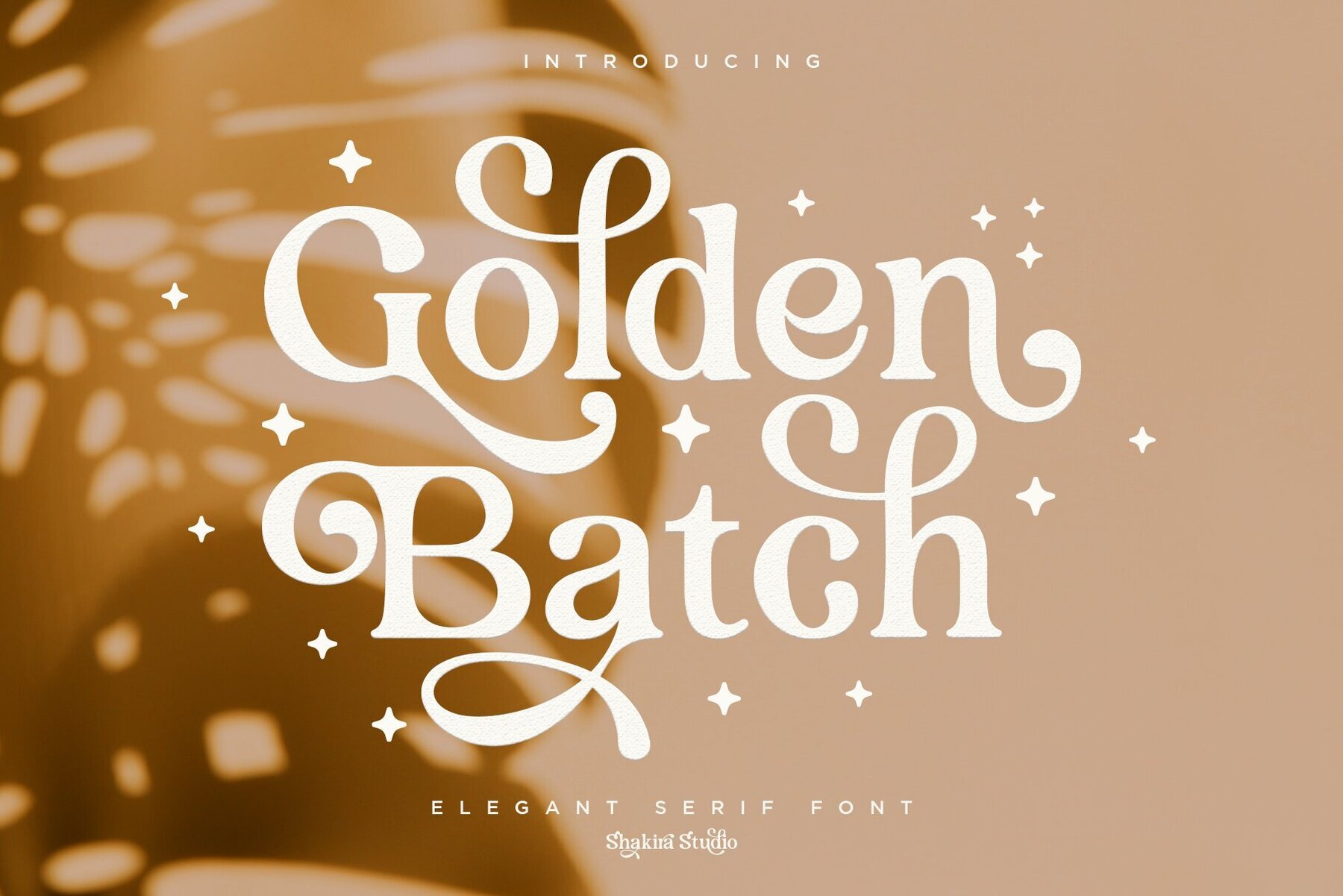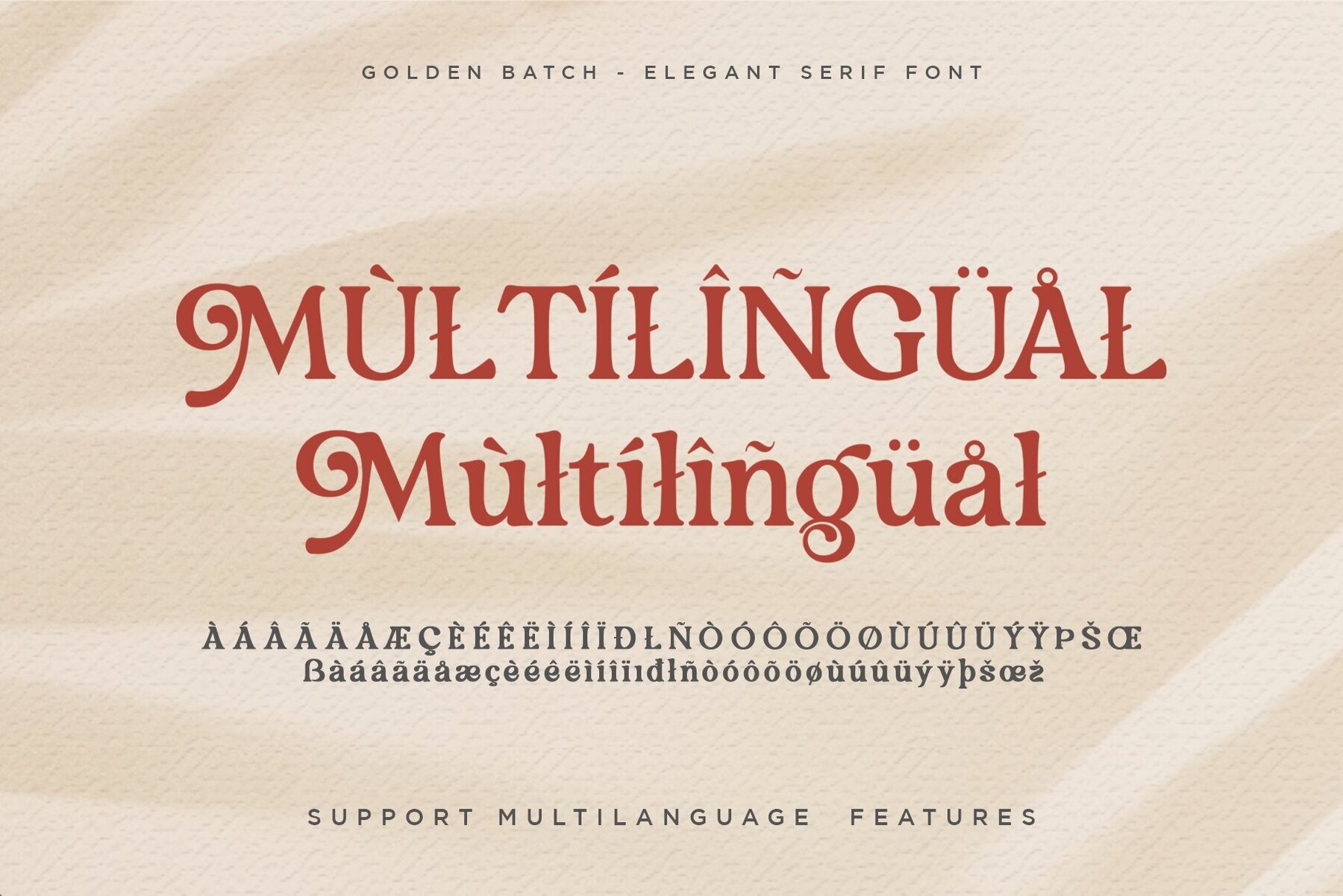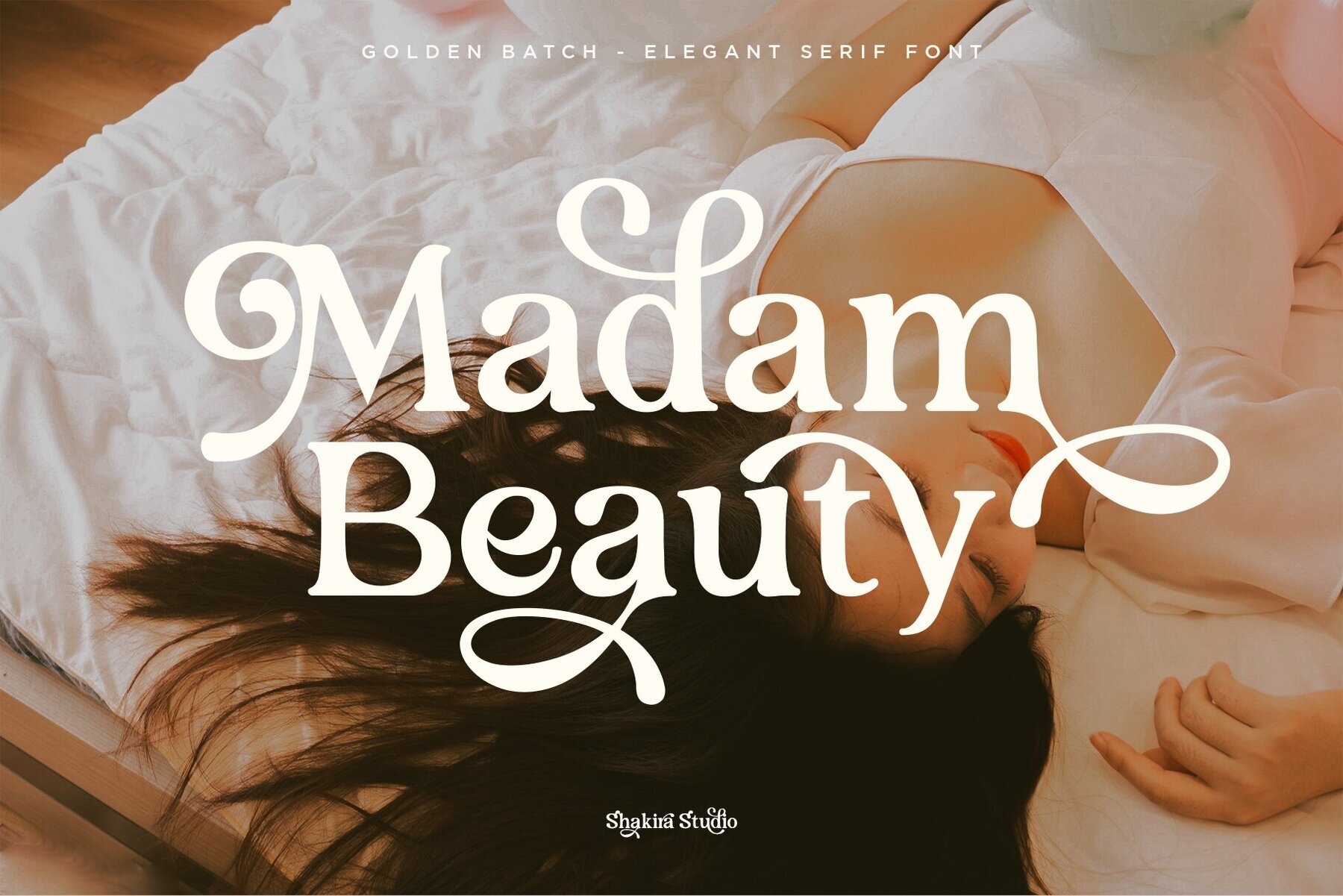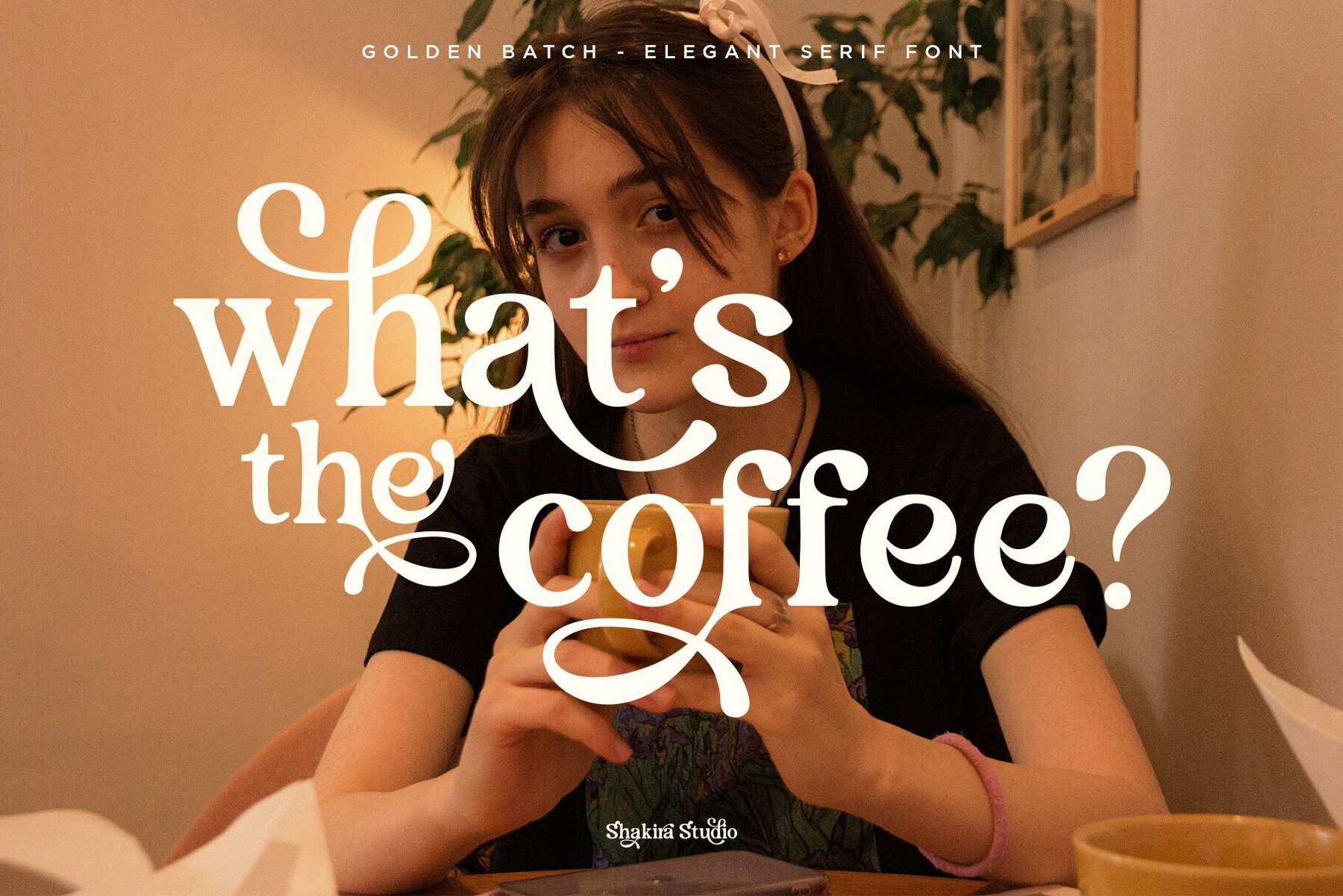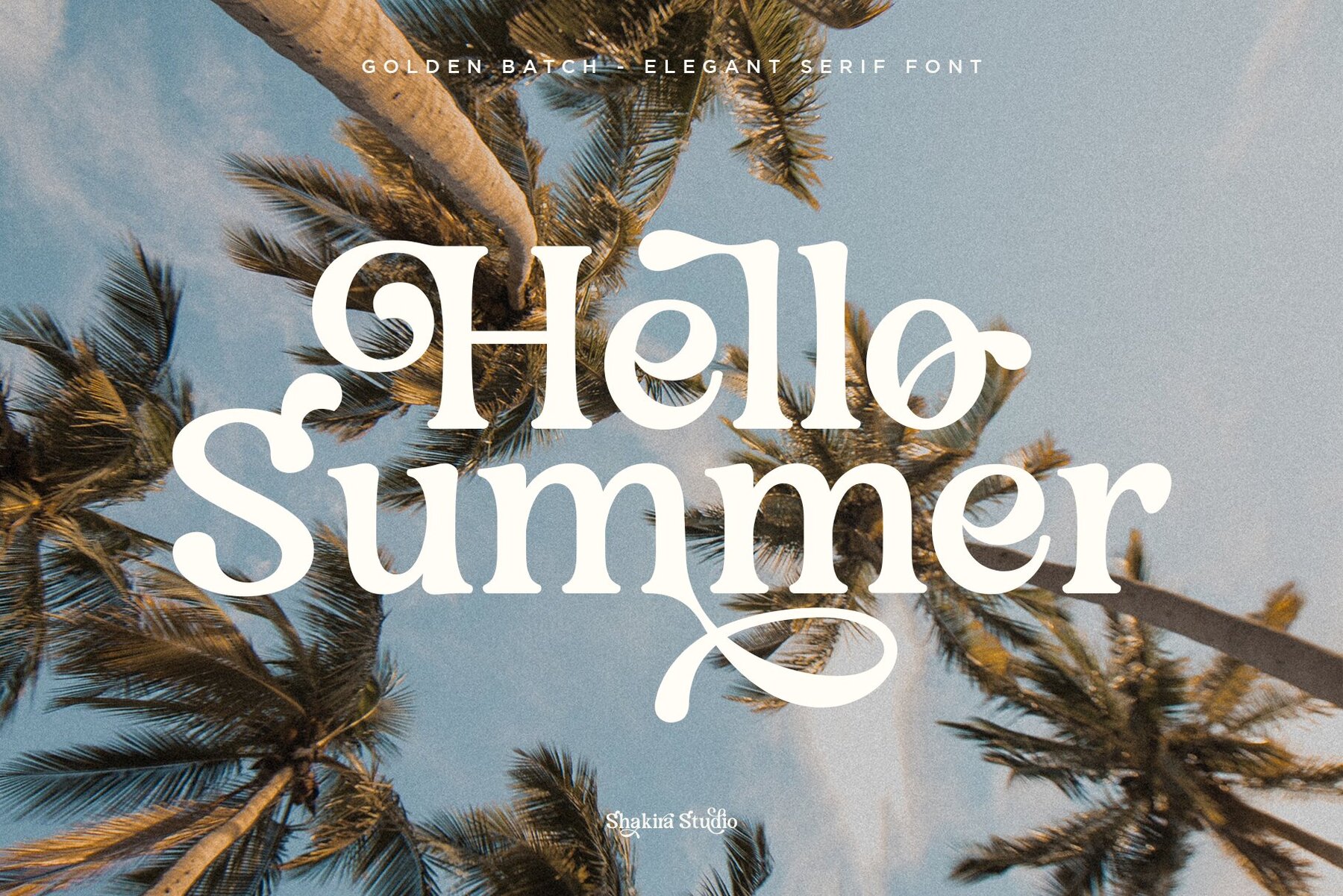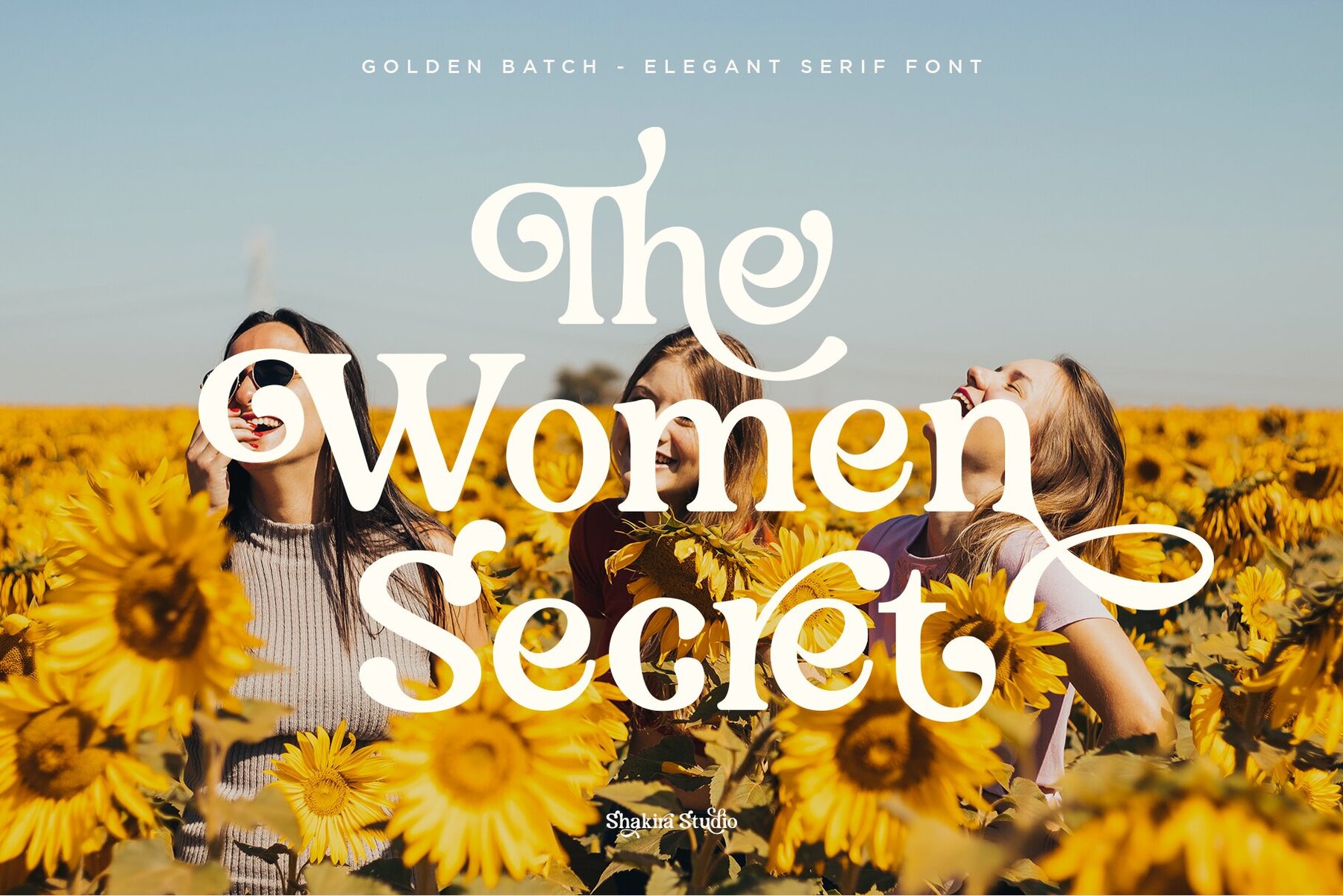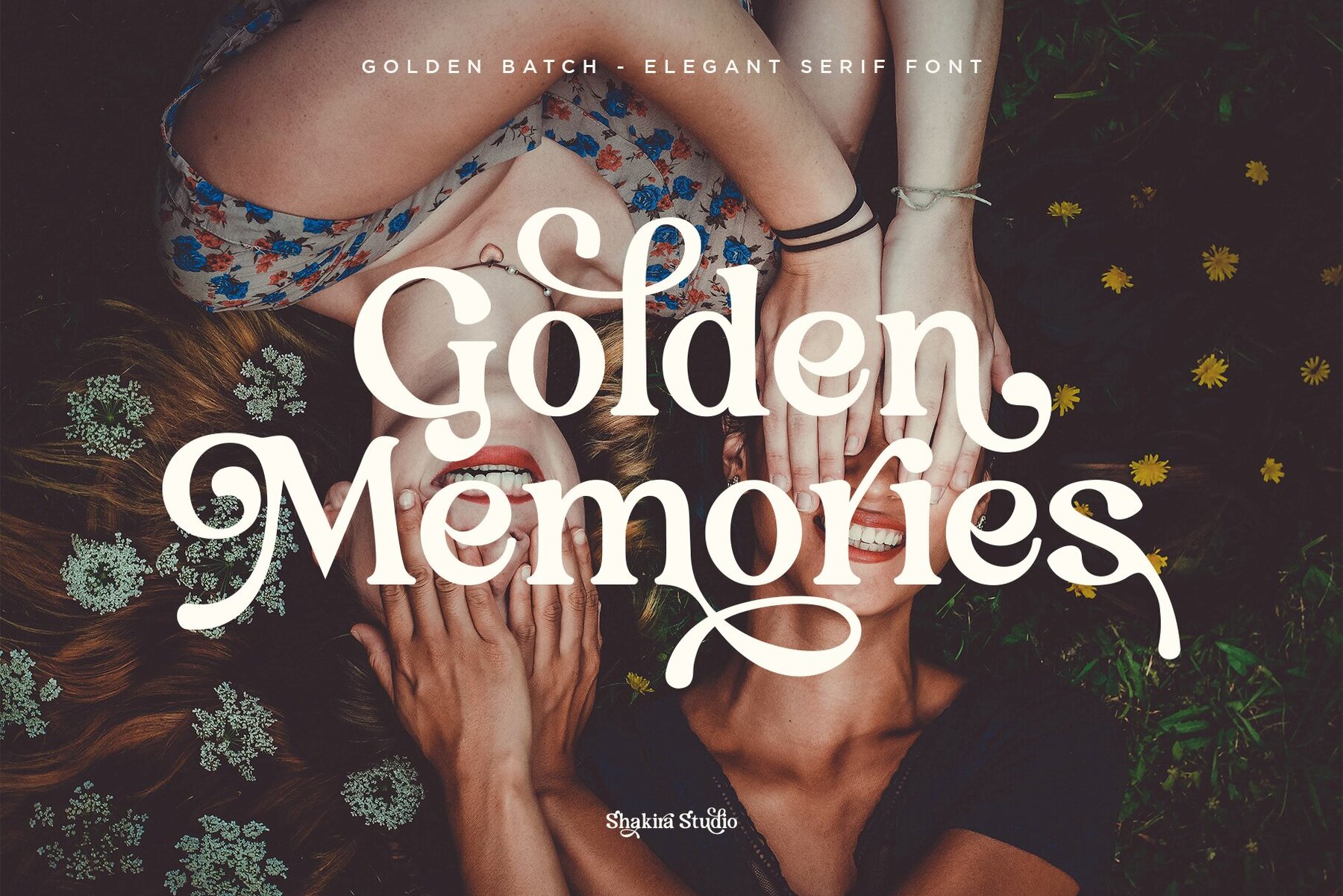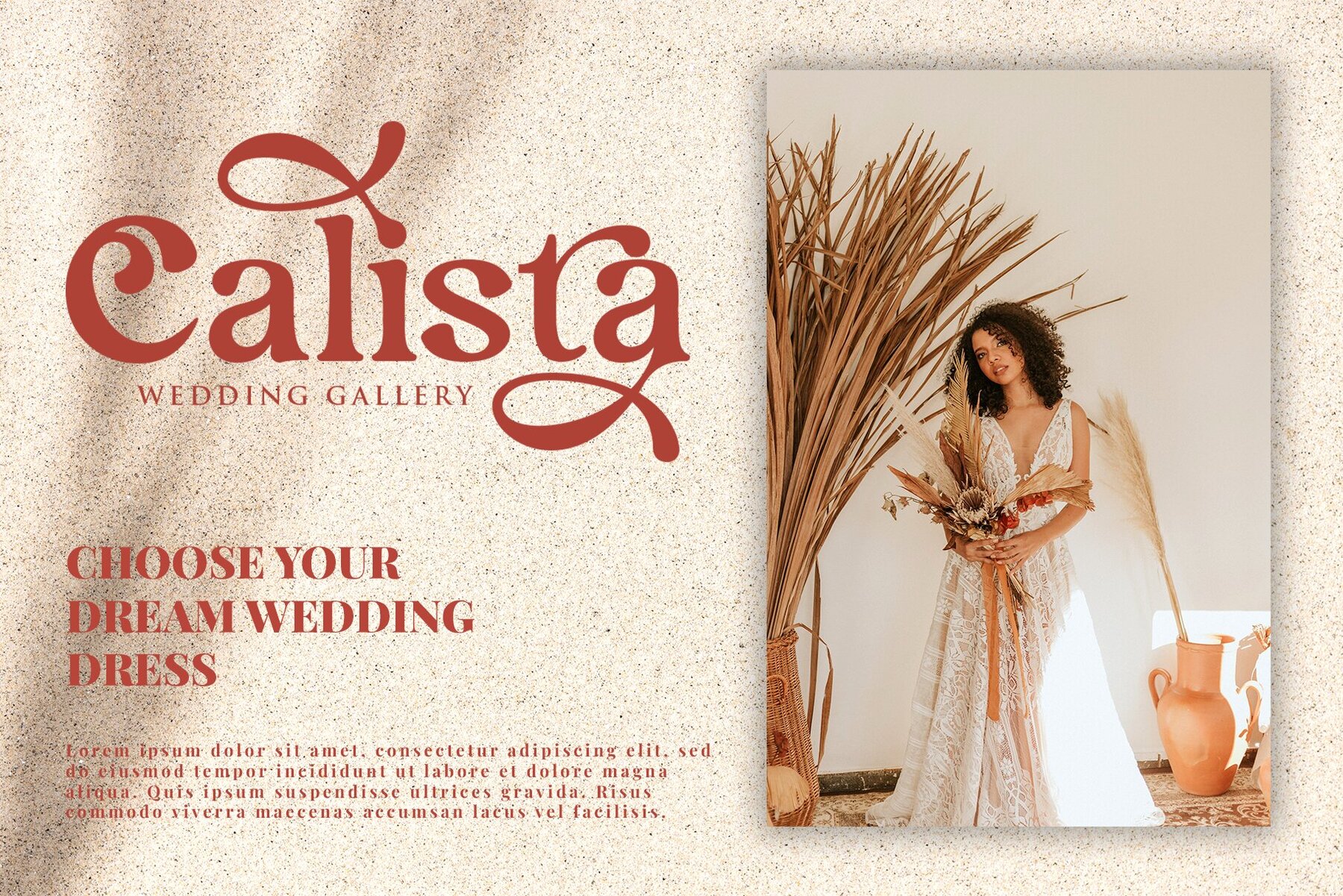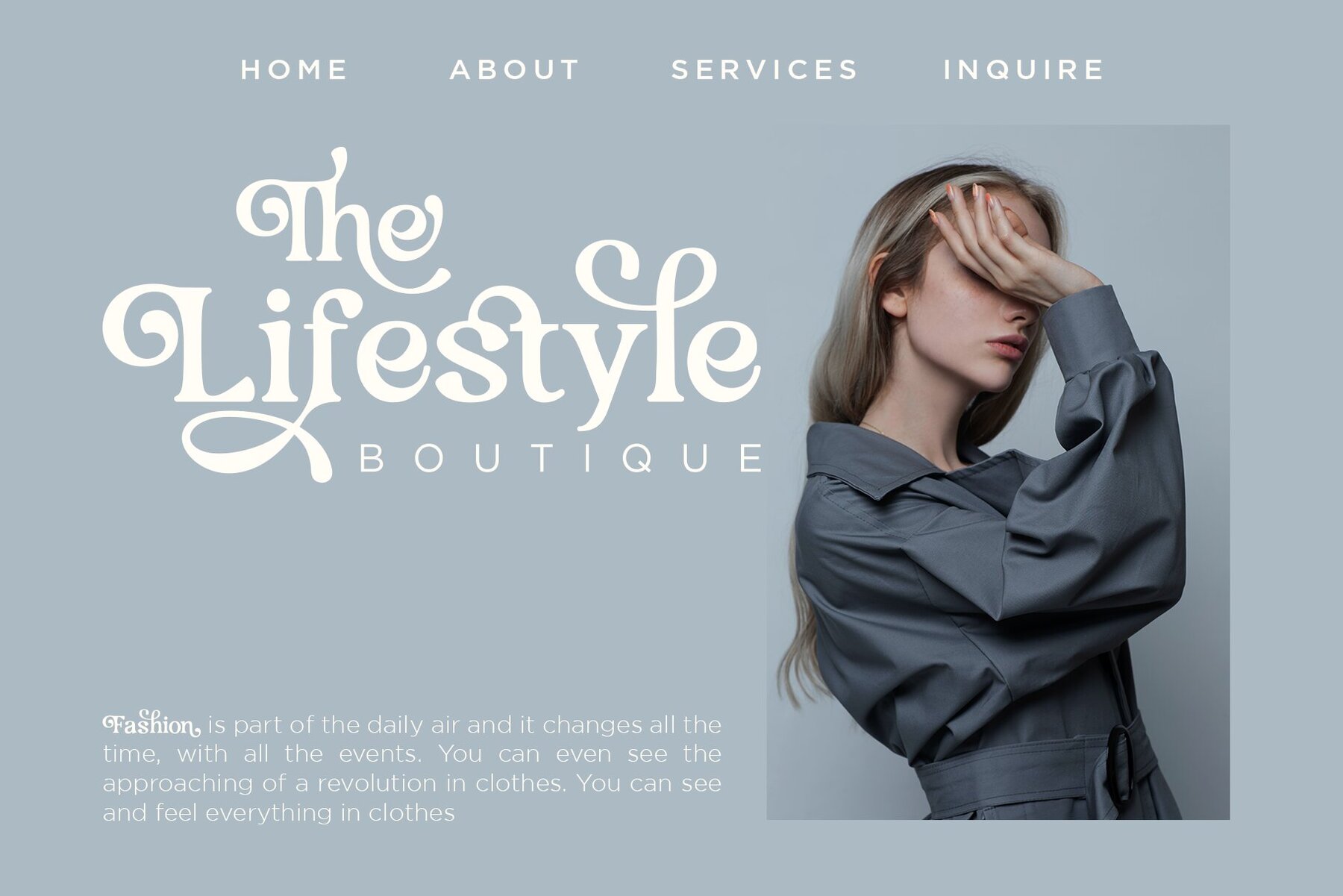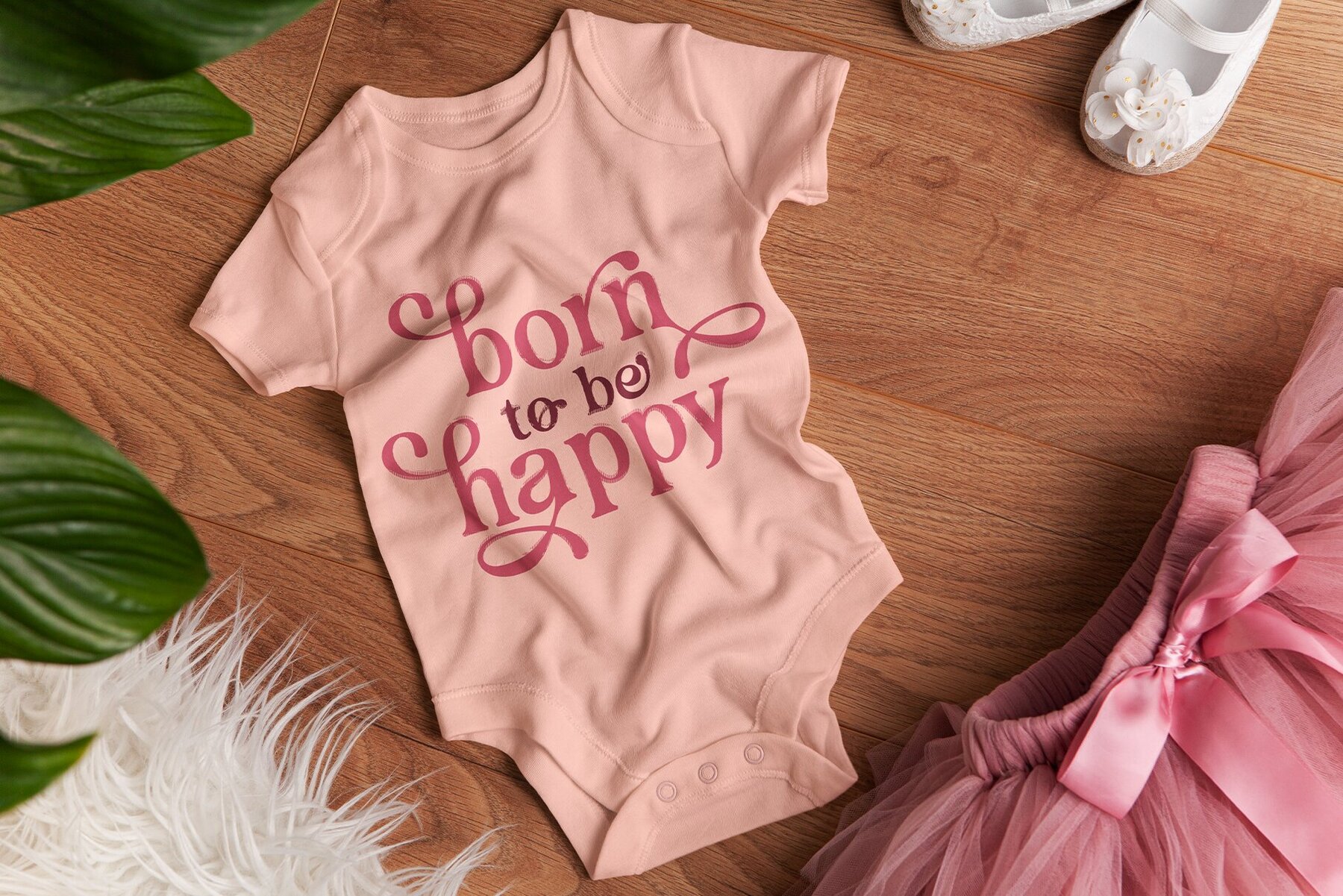
Golden Batch Font
Golden Batch Regular
Introducing Golden Batch font - the perfect font for those who want to add a touch of elegance and vintage flair to their designs. This serif font is perfect for creating bold and eye-catching designs that demand attention. The contrasting lines and curved terminals give Golden Batch font a sleek and elegant look that is perfect for logos, holiday cards, wedding invitations, quotes, advertisements, and more.